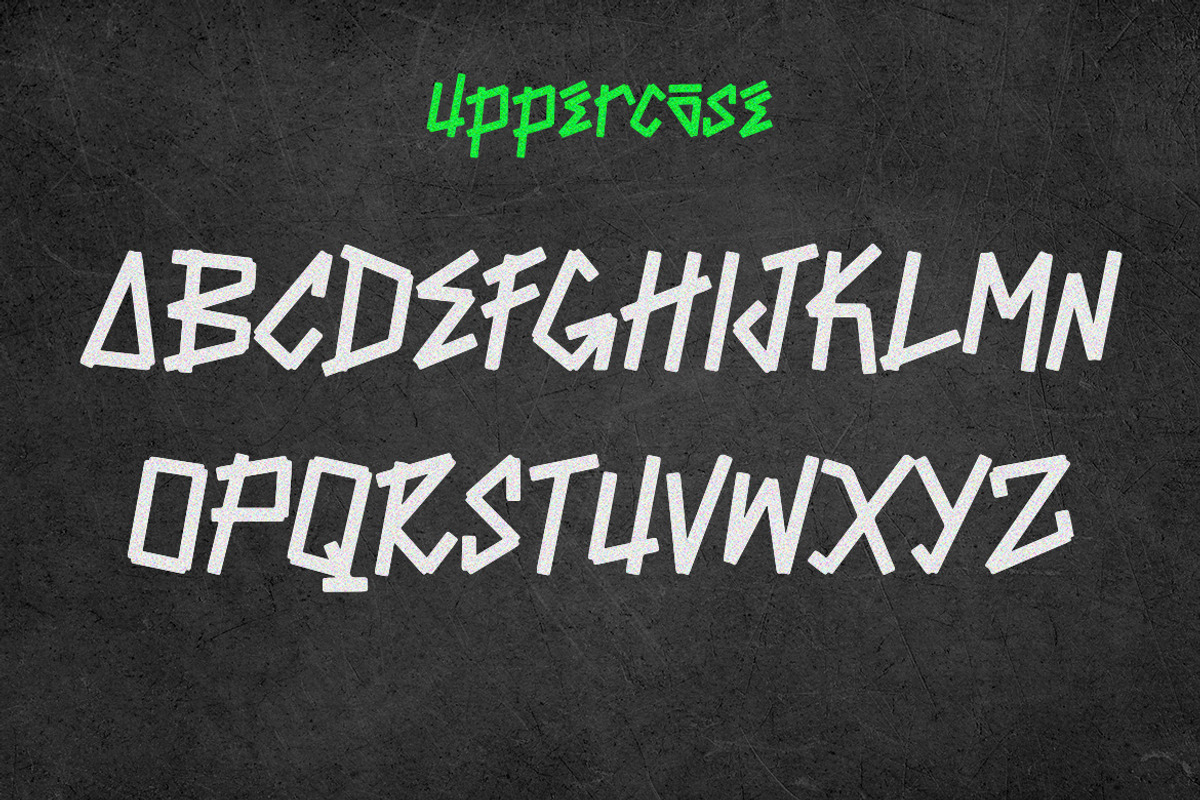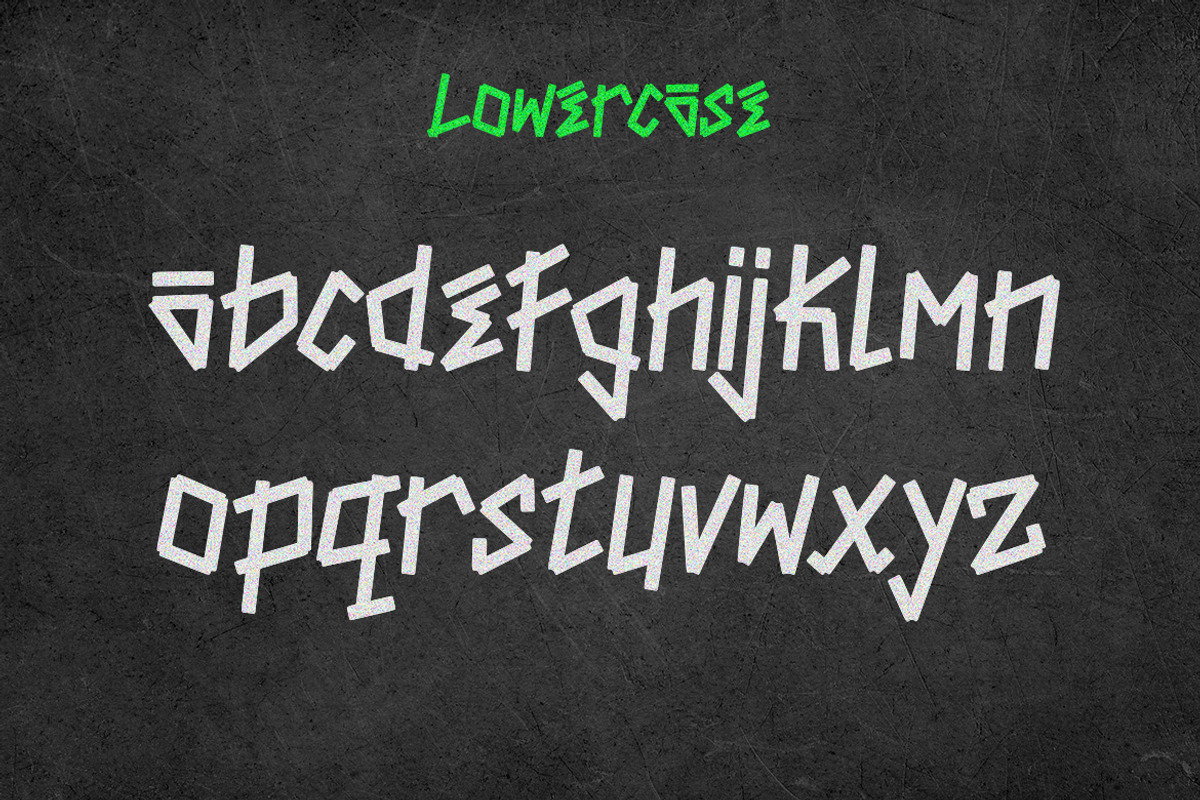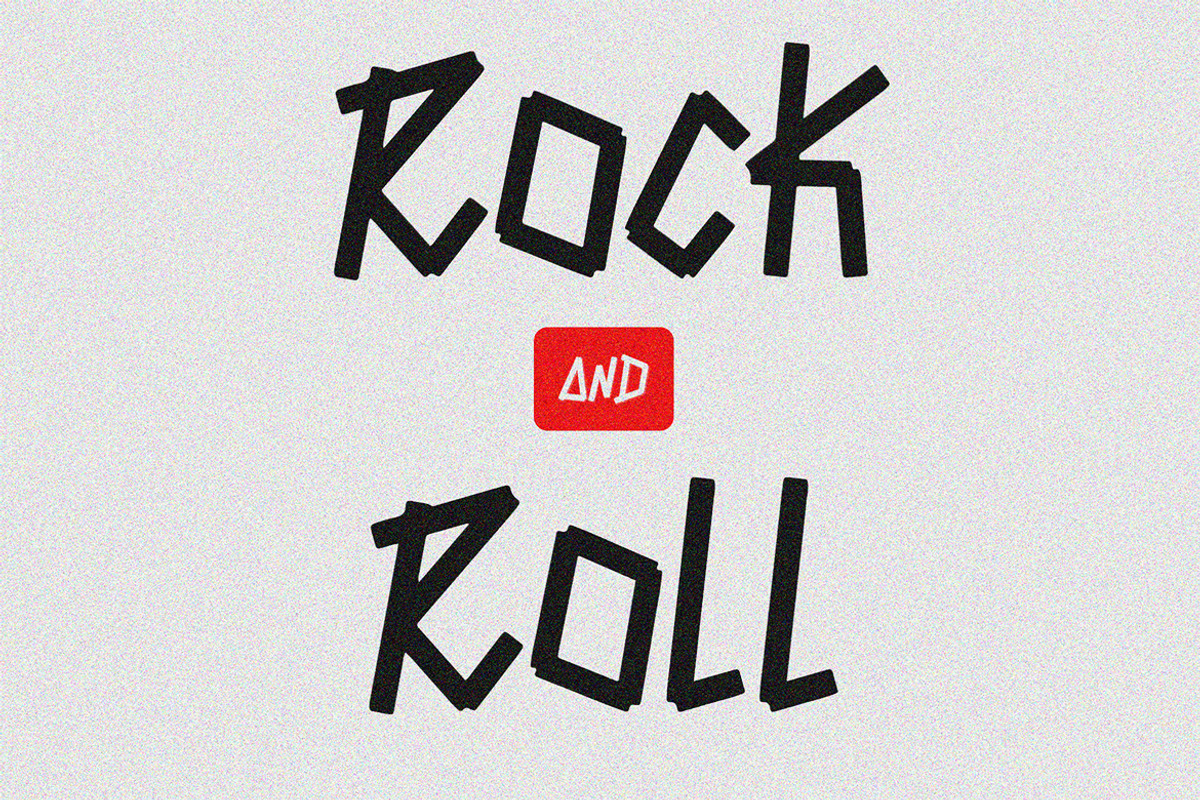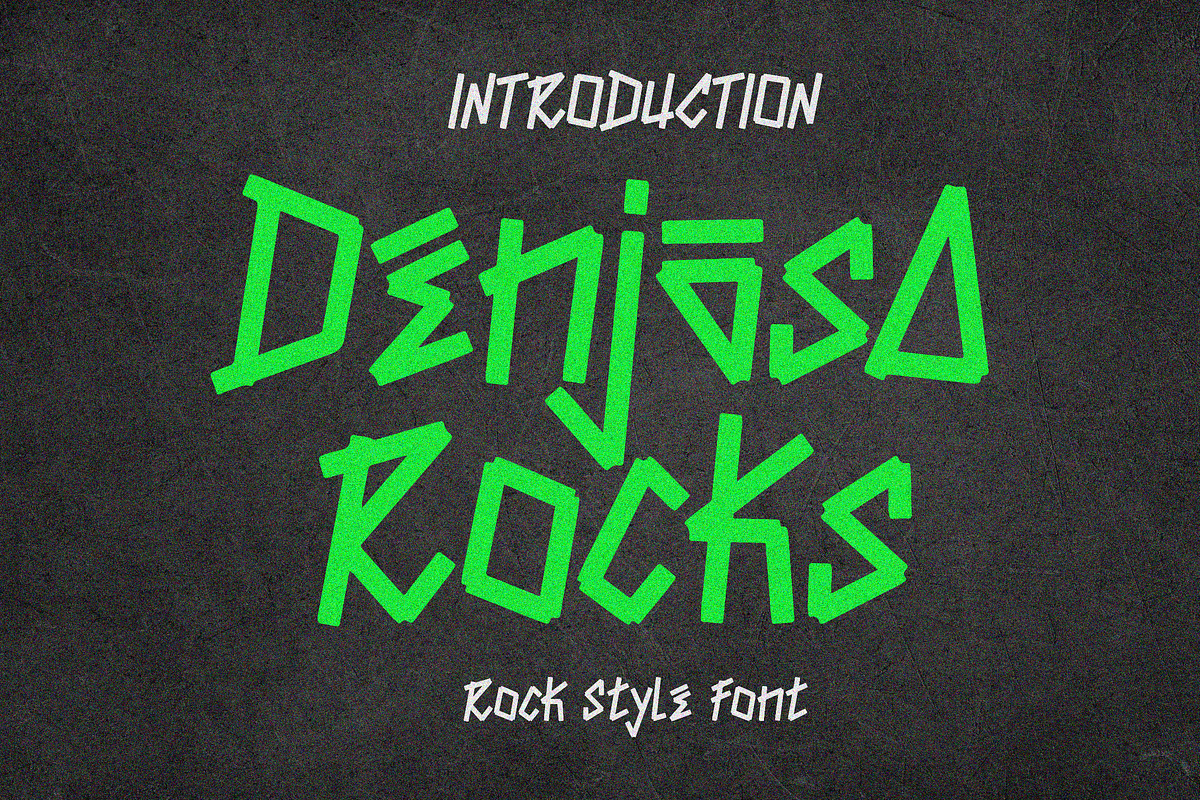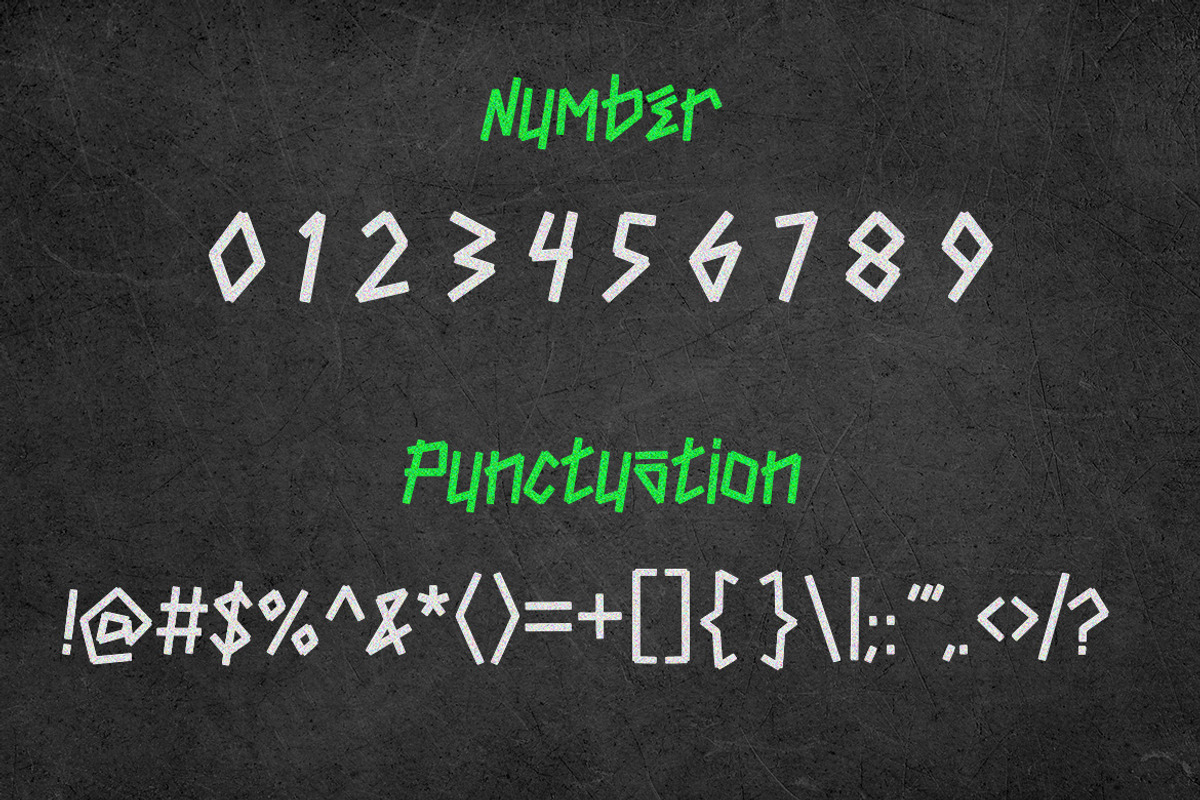
Denjasa Rocks Decorative Font
Denjasa Rocks is a unique display typeface perfect for titles, large text, branding, logotypes & graphic design purposes such as posters, pamphlets, and advertisements. This letter font can be a great choice for creating amazing logos, promotional content, and marketing presentations that can bring uniqueness and freshness at its best.